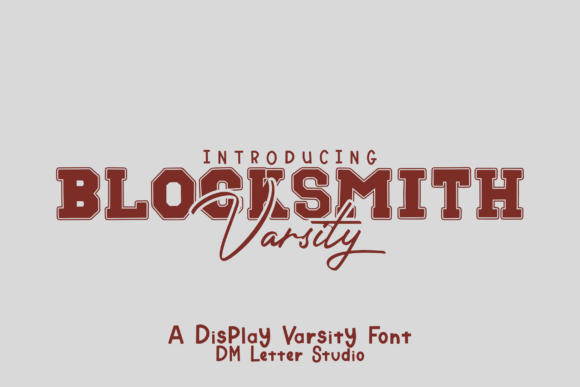
Introducing Blocksmith Varsity Font: The Ultimate Display Font for Sports and School Projects
Are you looking for a font that embodies the spirit of sports, school pride, and standout designs? Look no further than Blocksmith Varsity Font, a powerhouse display font that captures the classic aesthetic of team jerseys, college banners, and retro athletic graphics. In this article, we’ll dive into the features and benefits of Blocksmith Varsity, and explore how it can elevate your design projects.
What is Blocksmith Varsity Font?
Blocksmith Varsity Font is an all-caps display font designed specifically for sports, spirit, and standout designs. With its strong block shapes, sharp serifs, and classic varsity aesthetic, this font is perfect for creating logos, merchandise, school apparel, and more. Inspired by vintage school lettering and championship graphics, Blocksmith Varsity brings tradition and energy into every character.
Key Features of Blocksmith Varsity Font
- Traditional Varsity Style: Inspired by vintage school lettering and championship graphics, Blocksmith Varsity Font captures the classic look and feel of team jerseys and college banners.
- Perfect for Sports & School Projects: Ideal for team logos, spirit gear, stadium signage, and campus events, this font is designed to bring school pride and energy to your designs.
- Bold and Structured: With wide letterforms, strong verticals, and tight spacing, Blocksmith Varsity Font makes a maximum impact in any design.
- Complete Character Set: Includes A-Z uppercase letters, numbers, punctuation, and multilingual accents, giving you everything you need to create professional-looking designs.
Who Can Benefit from Blocksmith Varsity Font?
Blocksmith Varsity Font is perfect for anyone who needs to create designs that capture the spirit of sports, school pride, and tradition. This includes:
- Graphic designers working on sports team logos, merchandise, and branding projects
- School administrators and marketers creating promotional materials, signage, and apparel
- Designers and artists working on retro-style athletic graphics and posters
- Anyone looking for a bold, varsity-style font to add a touch of energy and tradition to their designs
How to Use Blocksmith Varsity Font in Your Designs
Using Blocksmith Varsity Font in your designs is easy. Here are a few tips to get you started:
- Pair Blocksmith Varsity with a sans-serif font for a classic, varsity-style look
- Use the font to create bold, eye-catching headlines and titles
- Experiment with different colors and textures to add depth and interest to your designs
- Don’t be afraid to get creative and try out new and innovative design ideas
Benefits of Using Blocksmith Varsity Font
There are many benefits to using Blocksmith Varsity Font in your designs. Here are just a few:
- Instant Recognition: The varsity-style aesthetic of Blocksmith Varsity Font is instantly recognizable, conveying a sense of tradition and school pride
- High-Impact Designs: The bold, structured letterforms of Blocksmith Varsity Font make it perfect for creating high-impact designs that grab attention
- Versatility: Blocksmith Varsity Font can be used in a wide range of design projects, from logos and merchandise to signage and posters
In conclusion, Blocksmith Varsity Font is a powerful display font that captures the classic aesthetic of team jerseys, college banners, and retro athletic graphics. With its strong block shapes, sharp serifs, and bold letterforms, this font is perfect for creating logos, merchandise, school apparel, and more. Whether you’re a graphic designer, school administrator, or artist, Blocksmith Varsity Font is a great choice for any design project that requires a touch of tradition and energy.